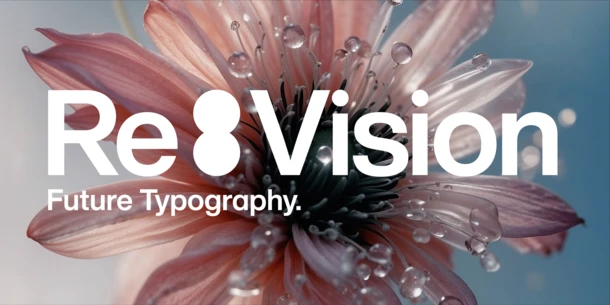
Monotype Unveils 2025 Type Trends Report Re:Vision — A Creative Lens on Global Change
Pink flower with blue background. White text: "Re:Vision, Future Typography." Colon is in the shape of a vertical venn diagram in all white.
Monotype Unveils 2025 Type Trends Report Re:Vision — A Creative Lens on Global Change
• Exploring how creativity is shaping and being shaped by global trends, including AI, regional conflict, generational divides, and climate change
• Designing for a changing world: the transformative power of design
WOBURN, Mass., February 12th, 2025 – Monotype Imaging Inc., a global leader in type design and technology, has released a different type of Trends Report, Re:Vision, giving designers, agencies, and creatives around the world a lens on how design and typography are capturing the cultural and creative zeitgeist in a time of accelerated societal and technological change.
Human Types header image
A New Creative Lens on Global Change
Type Trends 2025 is a fresh and timely look through the creative lens at a world that appears to be in constant flux. Design is an integral part of the way people, communities, brands, institutions, and society more broadly reflect, articulate, and address global challenges and opportunities. Produced by Monotype’s creative leaders and referencing recent real-world creative work from across the globe, the report provides a snapshot of how designers and brands are responding to accelerated change and the evolution of visual culture.
Re-Vision Theme Covers GIF
Six Key Themes
Type Trends 2025 presents six themes where design is a dynamic and powerful participant as the authors explore how creativity and innovation can help to solve problems, foster connection and collaboration, and inspire future action:
• Conflict & Peace: The urgent role of design and typography as a vehicle in expressing, mediating, and processing conflict. While type at times strives to be invisible, it can also signify ideas and act as a metaphor for division and reconciliation. This chapter looks specifically at real-world examples from designers and creatives exposed to the ongoing conflicts including in Ukraine and the Middle East, highlighting creativity’s role in times of crisis.
• Human Types: The relationship between creativity and AI, looking at the rise of new technologies while seeking to address how human creativity can exist and evolve in symbiosis with AI — working together to achieve outcomes that neither can accomplish in isolation.
• Life Cycle: Aging and the form and function of type in the generational continuum. This trend explores the media’s fascination with how Gen Z compares to older generations, and also examines social media, personal branding, and the growing demand for subtitles in our hyper-personalized everyday lives.
• Sound & Vision: The unexplored relationship between type and sound, both of which mean more than words and engage our senses over time. They are also key components in our understanding of volume — with potency often increased when sound and type are combined.
• Freedom, Law & Order: Law and order, as represented by and encoded by type. This relationship underpins communication in places such as protest and anti-protest, newspapers, and viral videos — places where type is a medium of the freedom expressed, negotiated, and, at times, reclaimed.
• Hot & Wet: How designers are using typographic expression in relation to the climate crisis, looking at type as a powerful vehicle in storytelling around climate change and how visual communication can inspire individual, community, and global action.
Type Trends 2025 is curated by Monotype’s Senior Executive Creative Director, Charles Nix, alongside Executive Creative Directors, Phil Garnham, and Tom Foley, with art direction by Design Team Lead, Marie Boulanger.
Monotype’s Senior Executive Creative Director Charles Nix said, “The report highlights how human creativity and visual communication are an intrinsic part of finding solutions to global challenges and navigating seismic societal and technological shifts. We’ve curated examples from around the world that show the power of design to shape — and be shaped by — global forces. We hope it inspires designers and creatives to collaborative action and, in a world that’s being rapidly transformed, provides a roadmap for the visual culture of tomorrow.”
Monotype’s Executive Creative Director Phil Garnham said, “Our report reframes the idea of design ‘trends’ by prioritizing culture over convention. Unlike past Monotype reports or others in the industry, it investigates how creatives respond to global cultural conditions. We’ve gathered insights from designers navigating exceptional circumstances and rapid societal, technological, and environmental change.”
Monotype’s Executive Creative Director Tom Foley said, “In an era marked by swift technological advancements and ever-changing societal dynamics, our 2025 report demonstrates the critical role of typography in shaping and reflecting our collective experiences. We aim to challenge and inspire the design community to embrace these changes and push the boundaries of visual communication.”